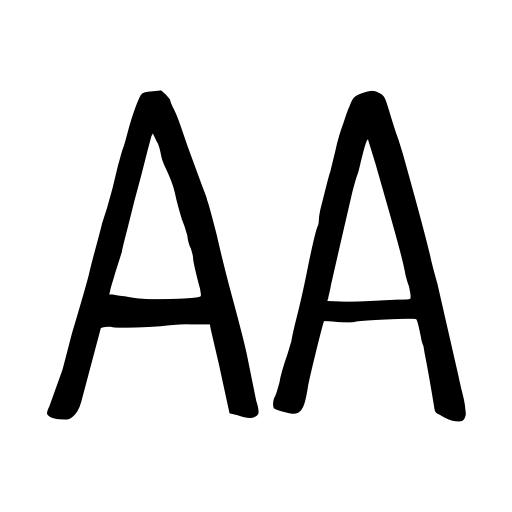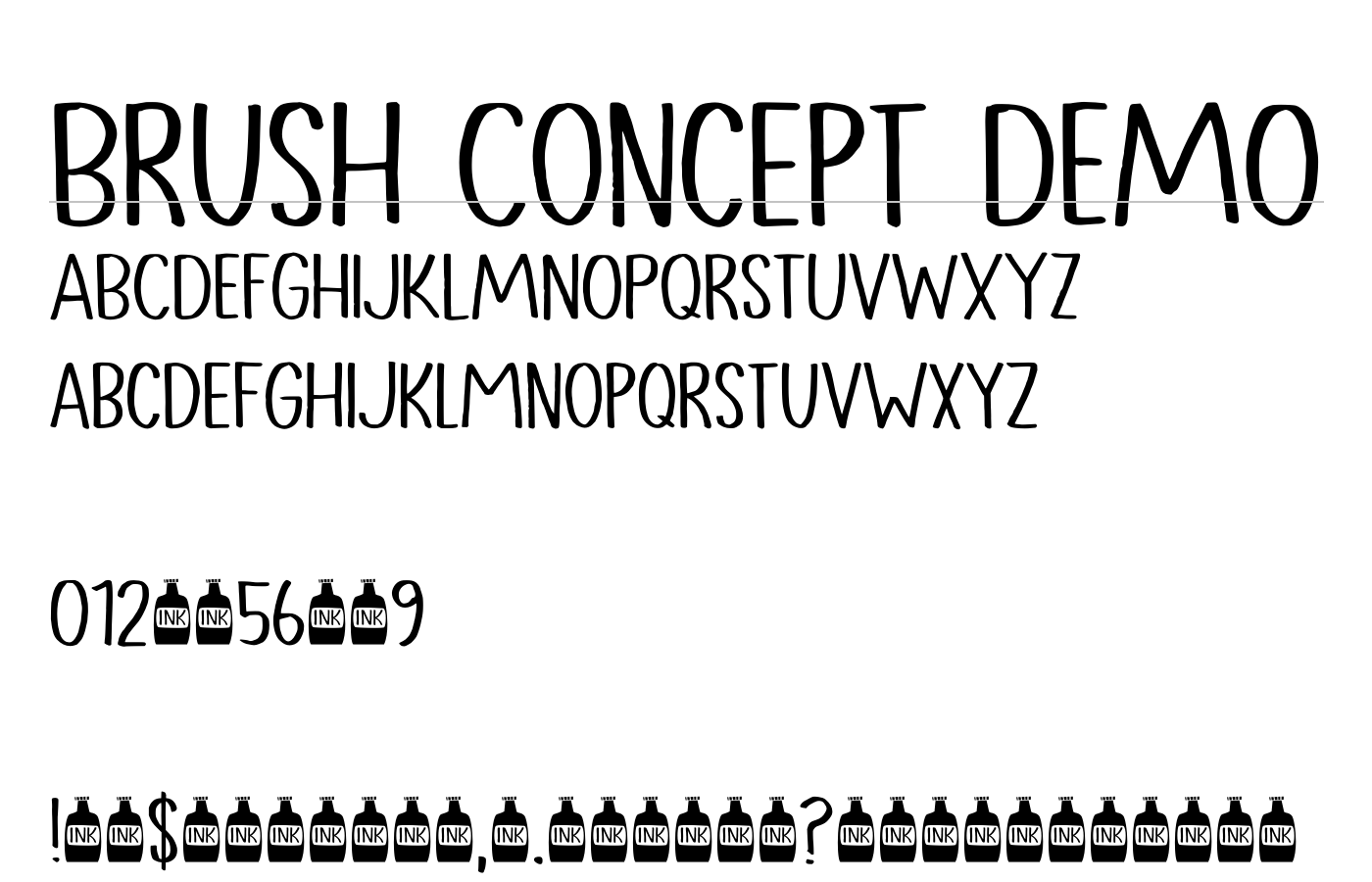
Brush Concept DEMO is a playful, hand-drawn sans serif font with tall, narrow letterforms and a casual, organic feel. Its uneven strokes and quirky shapes give it a friendly, informal style perfect for creative projects, children's materials, and branding that wants to convey approachability and fun. This font works well in headlines, logos, and packaging where a lively, hand-crafted look is desired.
Brush Concept DEMO Font
About Brush Concept DEMO Font
| Font family | Brush Concept DEMO Font |